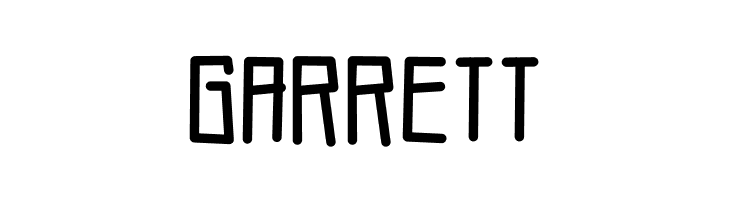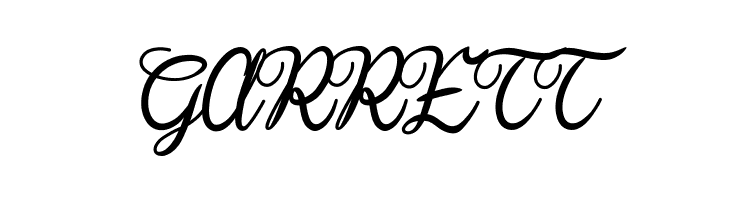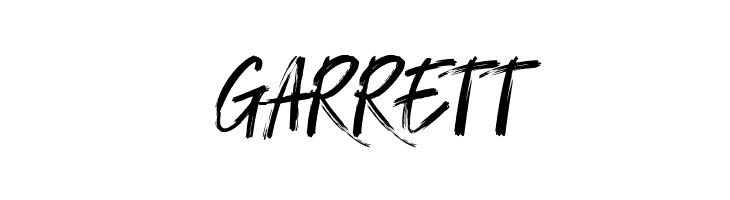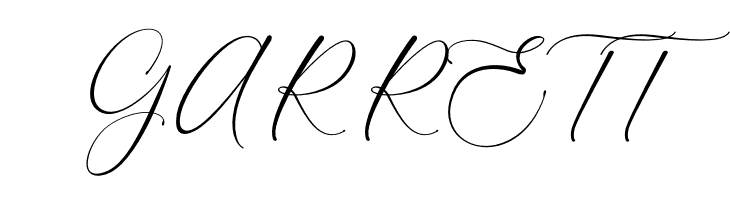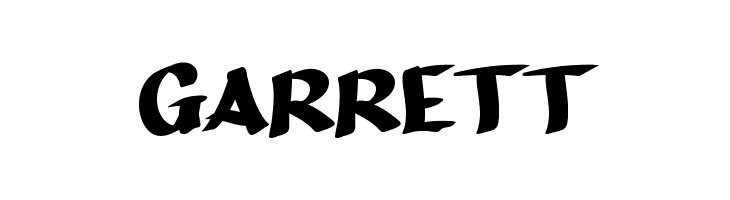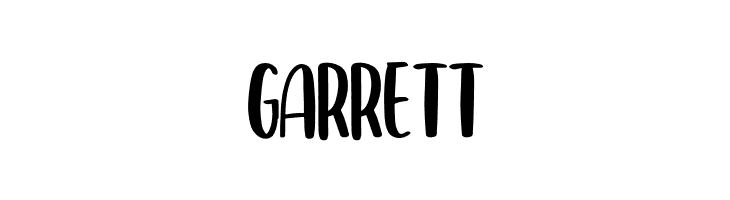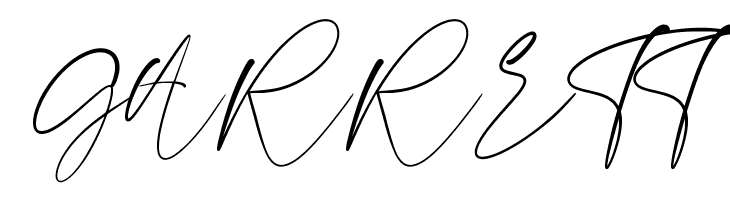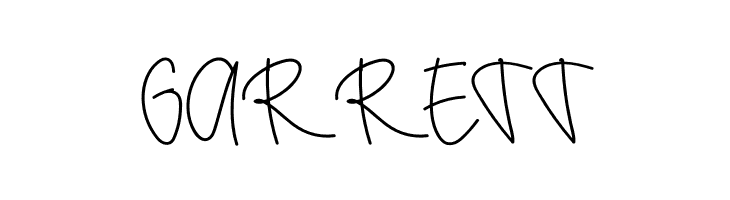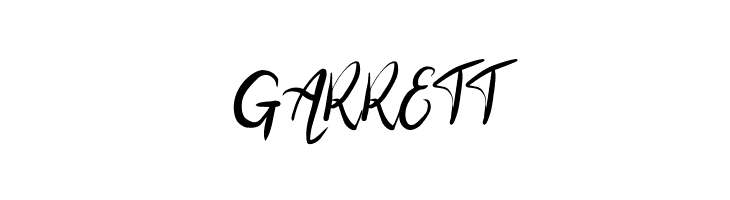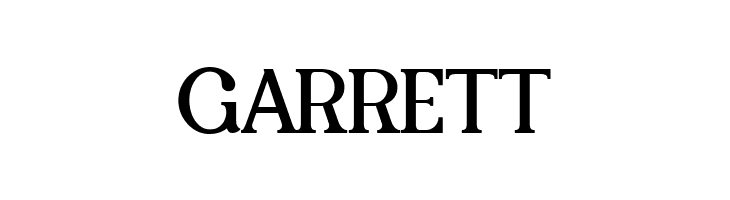
A bold, geometric font with a modern and striking design.
A bold, italicized font with a sleek, modern appearance and high contrast.
A bold, expressive script font with flowing, cursive letterforms.
A bold, energetic script font with dynamic curves and a lively style.
A playful, hand-drawn font with tall, narrow letters and a whimsical style.
A bold, impactful font with thick strokes and strong presence.
A playful, casual handwritten font with an organic flow and friendly appearance.
A bold, brushstroke font with a dynamic and textured appearance.
A playful, handwritten font with bold, rounded characters.
A playful, handwritten font with smooth curves and a casual style.
An elegant, flowing script font with a handwritten style.
A modern, elegant handwritten font with a flowing style.
A lively and flowing script font with elegant, cursive letterforms.
An ornate Blackletter font with intricate, bold letterforms.
A bold, ornate blackletter font with high contrast and intricate details.
A playful, bold font with rounded edges and a whimsical style.
A bold serif font with high contrast and sharp serifs, perfect for impactful designs.
A playful, handwritten font with rounded edges and a casual style.
A playful, handwritten font with a casual and friendly appearance.
A bold, brush-style script font with high contrast and dynamic strokes.
A bold, brush-style font with dynamic and energetic strokes.
A modern, geometric font with consistent line thickness and a playful aesthetic.
An elegant, cursive script font with flowing, ornate characters.
A playful, casual handwritten font with dynamic, flowing strokes.
A playful, bold handwritten font with smooth curves and a lively appearance.
An elegant and flowing script font with graceful curves and loops.
A bold, playful script font with a hand-drawn, energetic style.
A playful and elegant script font with fluid, connected strokes.
An elegant serif font with high contrast and decorative elements.
A dynamic and fluid script font with elegant, flowing strokes.
A bold, brush-style script font with dynamic strokes and artistic flair.
A bold, brushstroke font with a dynamic and artistic style.
An elegant, flowing script font with ornate uppercase and fluid lowercase letters.
A flowing, elegant script font with cursive strokes and decorative elements.